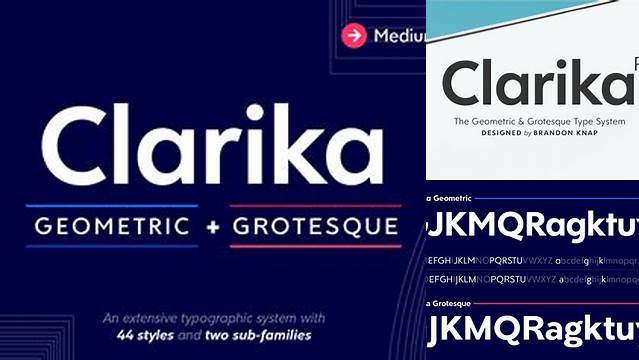
Hey guys! Looking for that perfect geometric font to spice up your design projects? You've probably heard about the Clarika Office font, a sleek and modern typeface that's been making waves. It's clean, it's versatile, and it's oh-so-geometric! In this guide, we'll dive deep into everything you need to know about the Clarika Office font, including where to find a free download, how to use it effectively, and explore some awesome alternatives. Let's get started!
Clarika Office Font: An Introduction
Let's kick things off by getting to know Clarika Office font a little better. This typeface is celebrated for its geometric construction, which gives it a contemporary and professional vibe. It’s ideal for a wide array of applications, from branding and logos to websites and print materials. The clean lines and balanced proportions make it incredibly readable, ensuring your message is always clear and impactful. Whether you're designing a sleek corporate brochure or a modern website, Clarika Office font can add that touch of sophistication you're looking for.
Think about the last time you saw a design that really caught your eye. Chances are, the font played a significant role in making it memorable. A well-chosen font can elevate your entire project, and Clarika Office font is definitely a strong contender in the world of geometric typefaces. Its versatility means it can adapt to various styles and themes, making it a valuable asset in any designer’s toolkit. Plus, its availability for free download (under certain licenses) makes it even more appealing.
Using Clarika Office Font in Your Designs
So, you’ve got your hands on Clarika Office font. Awesome! Now, let’s talk about how to use it effectively in your designs. This geometric font shines when used thoughtfully, so here are some tips to help you make the most of it.
Firstly, consider the overall tone and style of your project. Clarika Office font is modern and clean, making it perfect for designs that aim for a contemporary or professional feel. It works well for logos, branding materials, websites, and even print documents. Think about how the font complements your other design elements, such as colors, images, and layout.
Secondly, pay attention to readability. While Clarika Office font is generally easy to read, you still need to consider factors like font size, line height, and letter spacing. Ensure that your text is legible, especially in smaller sizes or on screens. Experiment with different variations of the font, such as bold or italic, to add emphasis or create visual hierarchy.
Thirdly, think about pairing Clarika Office font with other typefaces. Combining different fonts can add depth and interest to your designs, but it’s important to choose fonts that complement each other. Try pairing Clarika Office font with a classic serif font for a sophisticated look, or with a sans-serif font for a more modern feel. Experiment and see what works best for your project. Don't be afraid to test the waters!
Conclusion: Embrace the Power of Geometric Fonts
So, there you have it – a comprehensive guide to Clarika Office font and the world of geometric typography! Whether you're a seasoned designer or just starting out, I hope this guide has given you some valuable insights and inspiration. Remember, the right font can make all the difference in creating a successful and impactful design. Embrace the power of geometric fonts and let your creativity soar!